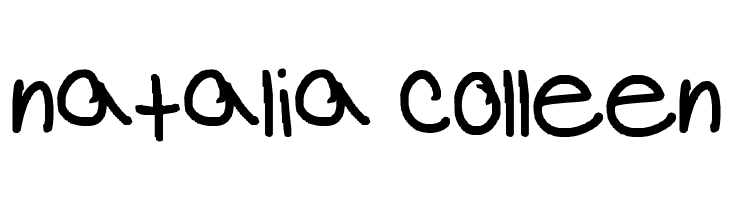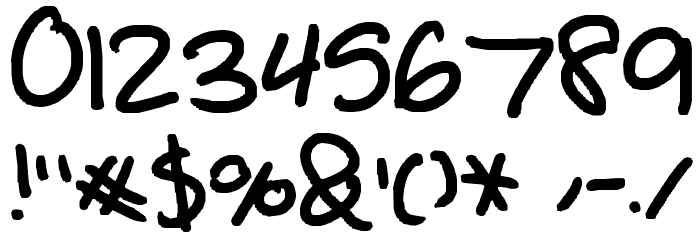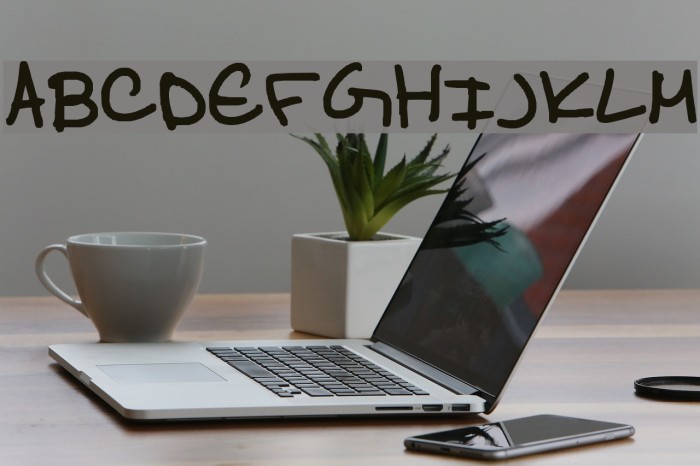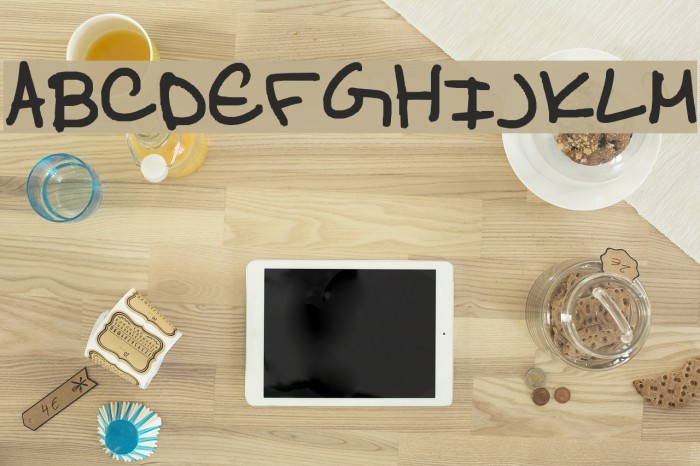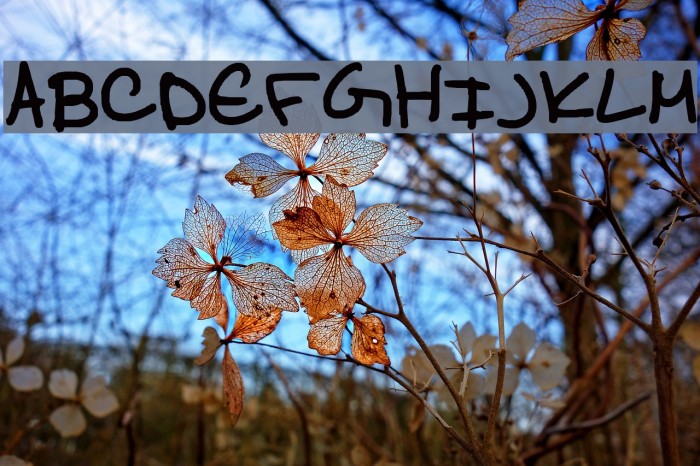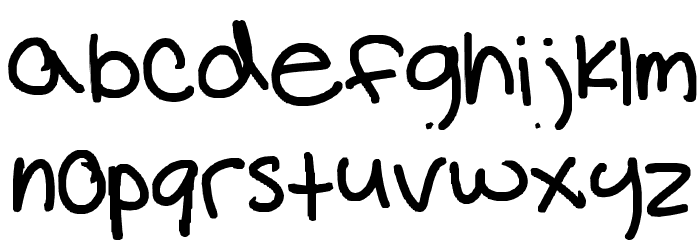
natalia colleen Font
This font exudes a playful and casual handwritten style, characterized by its irregular strokes and informal appearance. The letters are slightly slanted, giving it a dynamic and lively feel. The uppercase and lowercase letters maintain a consistent flow, while the numbers and special characters complement the overall aesthetic with their quirky shapes. The font's organic and spontaneous look makes it ideal for projects that require a personal touch or a sense of informality. Its unique charm lies in its ability to convey warmth and approachability, making it suitable for a variety of creative applications.
A playful, casual handwritten font with irregular strokes and a lively feel.
• Proposed Projects: Ideal for greeting cards, children's books, personal blogs, and informal branding.
• Category: Handwritten
• Overall Style: Casual
• Use Case: Headlines, Informal text, Creative projects